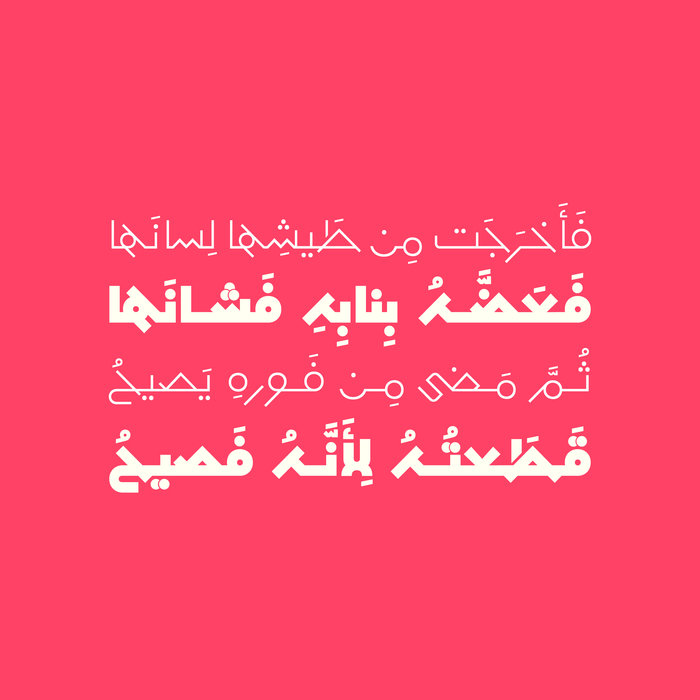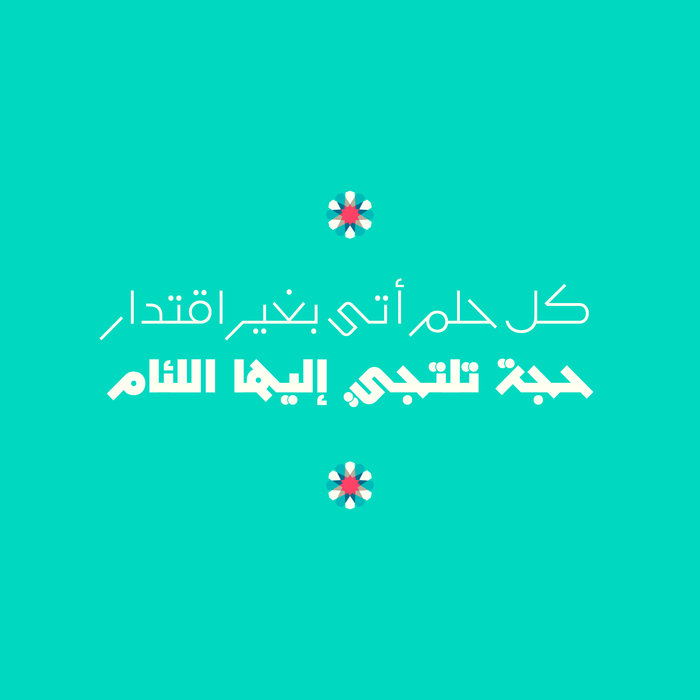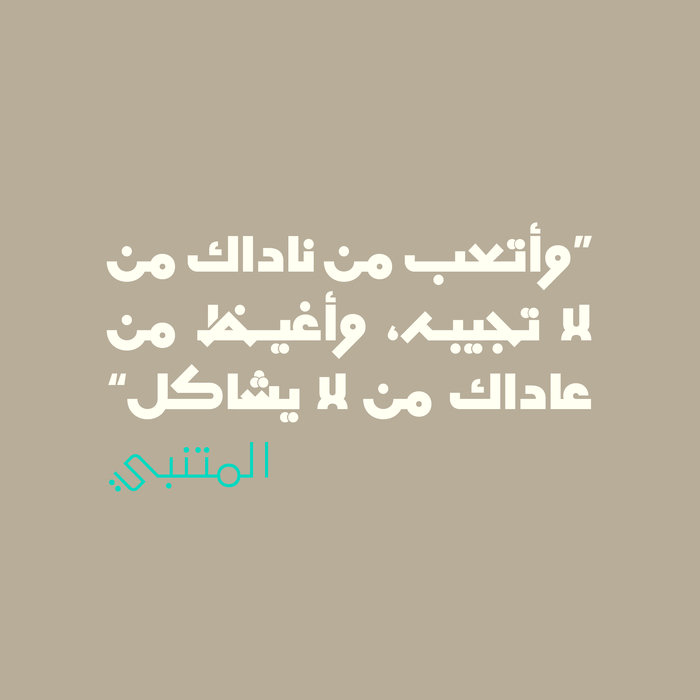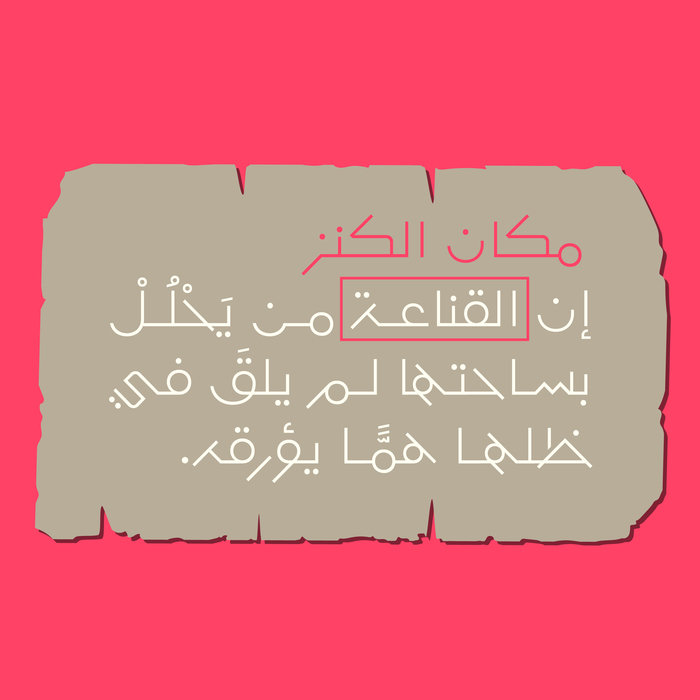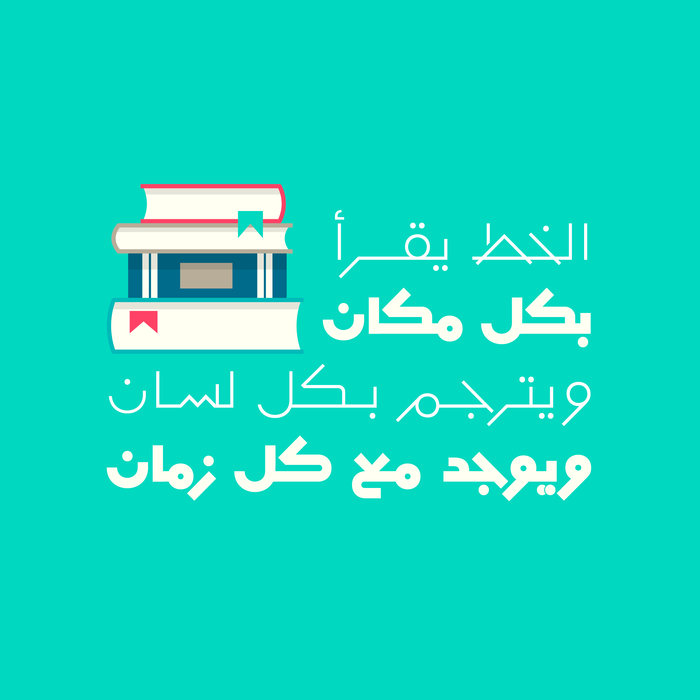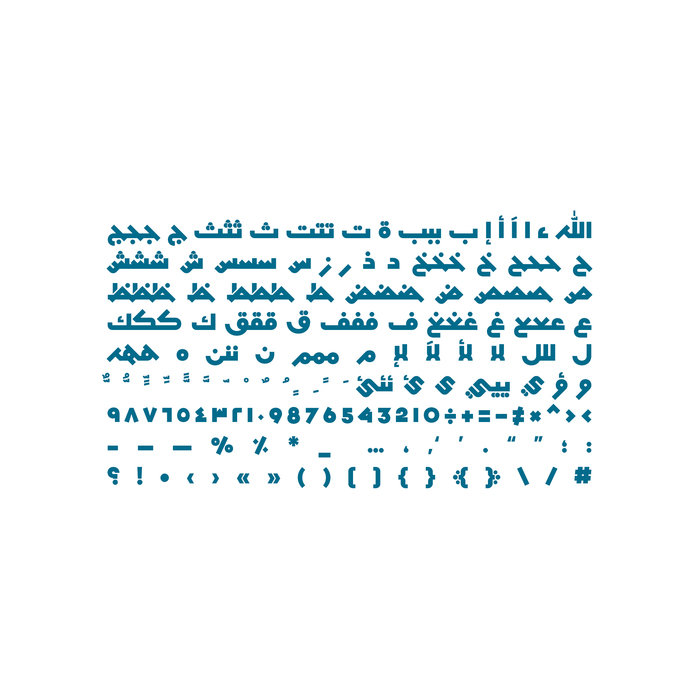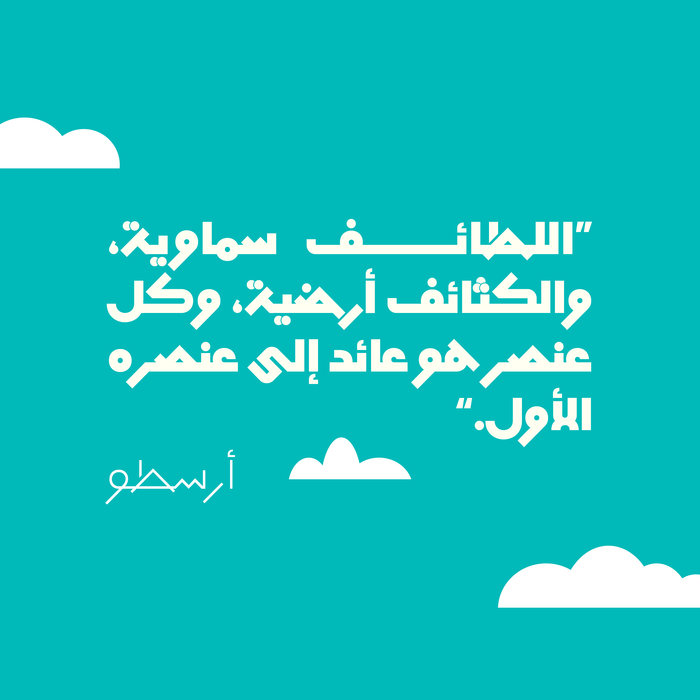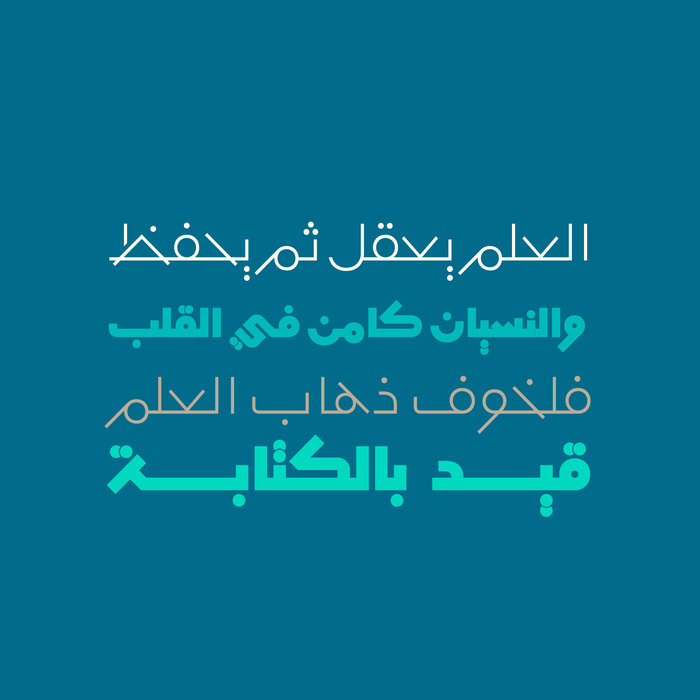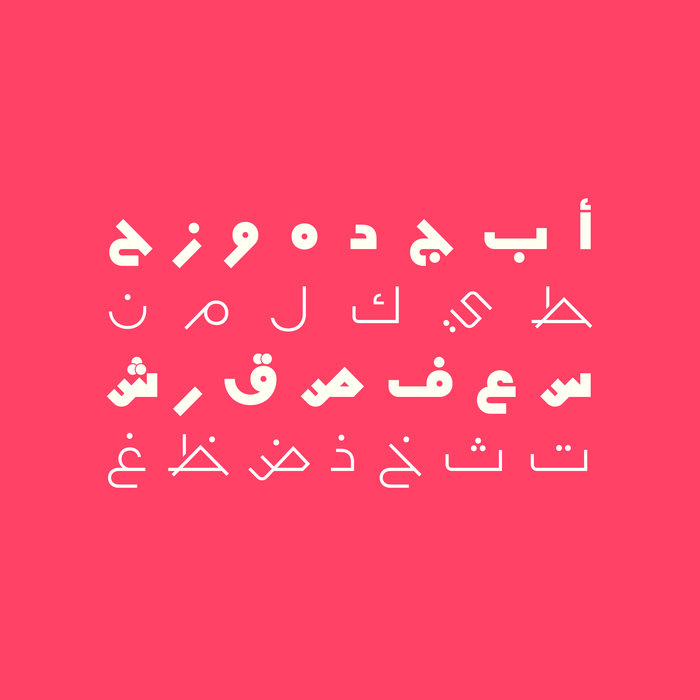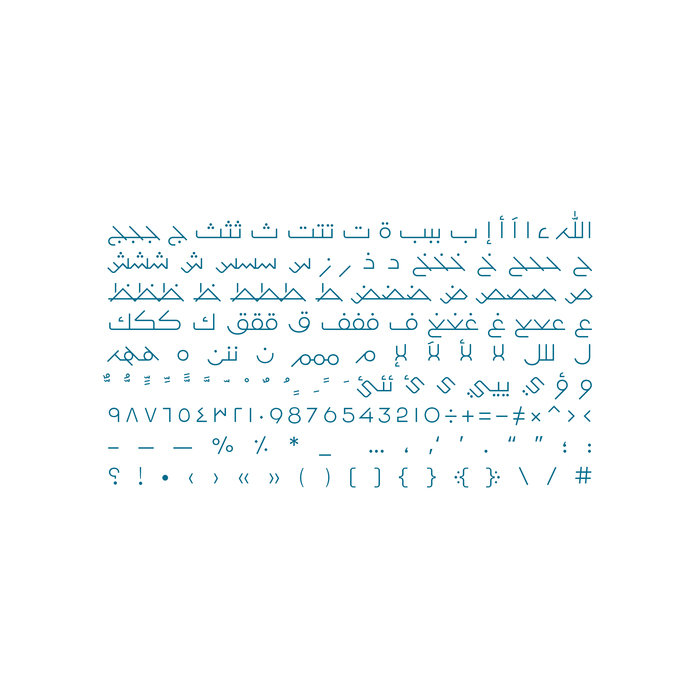
Mobtakar - Arabic Typeface
Mobtakar (which is the Arabic word for innovative) is an Arabic display font. It features solid geometric letterform that combines both authenticity and modernism. Due to its unique style, Mobtakar is a good companion to illustrations, geometric patterns and motifs. The typeface consists of two fonts (Thin and Fat) and it is suitable for web, print and mobile applications.